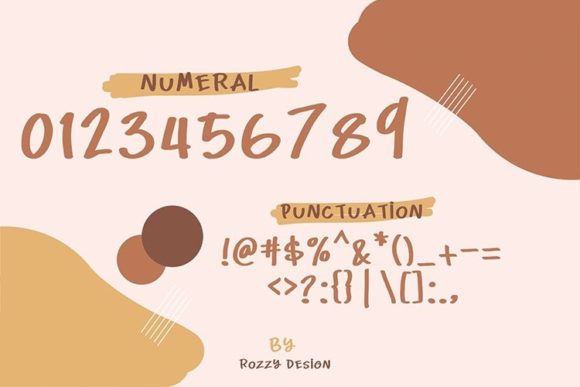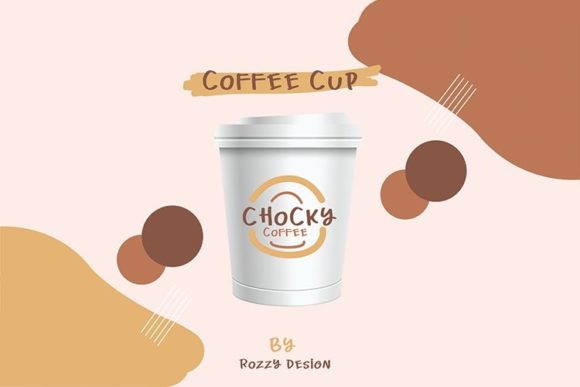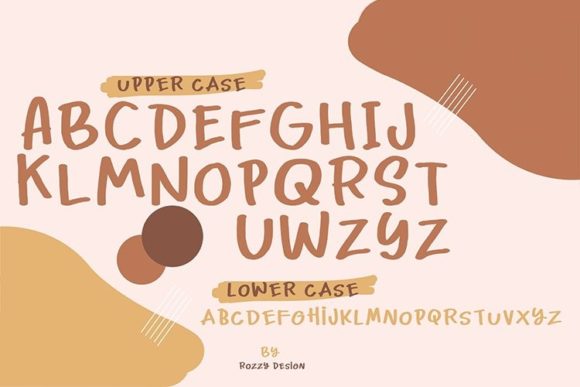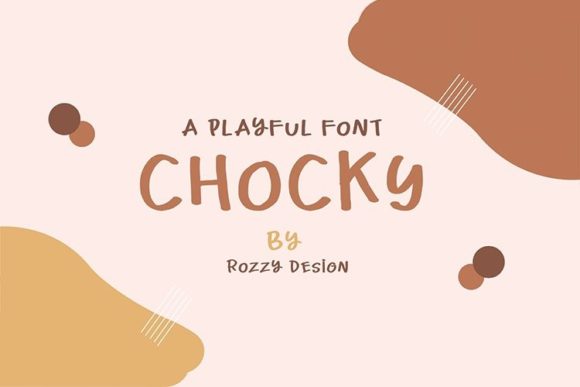
Introducing Chocky Font: The Perfect Handwritten Font for Chalkboard Quotes and Teaching Materials
Are you a designer, teacher, or crafter looking for a font that can add a personal and realistic touch to your designs? Look no further than Chocky Font! This beautiful handwritten font is specifically designed to mimic the look and feel of chalkboard writing, making it perfect for creating authentic and eye-catching chalkboard quotes, teaching materials, and more.
The Authentic Look and Feel of Chalk
Chocky Font is carefully crafted to replicate the imperfections and uniqueness of handwriting on a chalkboard. Its authentic look and feel will transport your audience to a traditional classroom setting, making it ideal for educational materials, presentations, and even marketing campaigns. With Chocky Font, you can add a touch of nostalgia and warmth to your designs, setting them apart from the usual digital fonts.
Whether you’re a professional designer or a crafter, Chocky Font is an excellent addition to your font collection. Its versatility and charm make it suitable for a wide range of projects, including:
• Chalkboard quotes and posters
• Teaching materials and worksheets
• Presentations and lectures
• Marketing campaigns and advertisements
• DIY projects and crafts
Key Features of Chocky Font
So, what makes Chocky Font so special? Here are some of its key features:
• Handwritten authenticity: Chocky Font is carefully designed to mimic the look and feel of handwriting on a chalkboard.
• Unique character set: Each letter, number, and symbol is uniquely crafted to ensure a realistic and authentic look.
• Easy to read: Despite its handwritten nature, Chocky Font is surprisingly easy to read, making it perfect for body text and headings.
• High-quality design: Chocky Font is designed with high-quality craftsmanship, ensuring a professional finish for your designs.
Tips for Using Chocky Font
To get the most out of Chocky Font, here are some tips for using it in your designs:
• Pair with images: Combine Chocky Font with images of chalkboards, classrooms, or educational settings to create an immersive experience.
• Experiment with colors: Try pairing Chocky Font with different colors, such as pastel shades or bold brights, to add visual interest to your designs.
• Use for headings and titles: Chocky Font is perfect for headings and titles, adding a touch of personality and whimsy to your designs.
In conclusion, Chocky Font is a unique and versatile handwritten font that’s perfect for designers, teachers, and crafters. Its authentic look and feel make it an excellent choice for creating chalkboard quotes, teaching materials, and more. With its easy-to-read design and high-quality craftsmanship, Chocky Font is sure to become a favorite in your font collection.